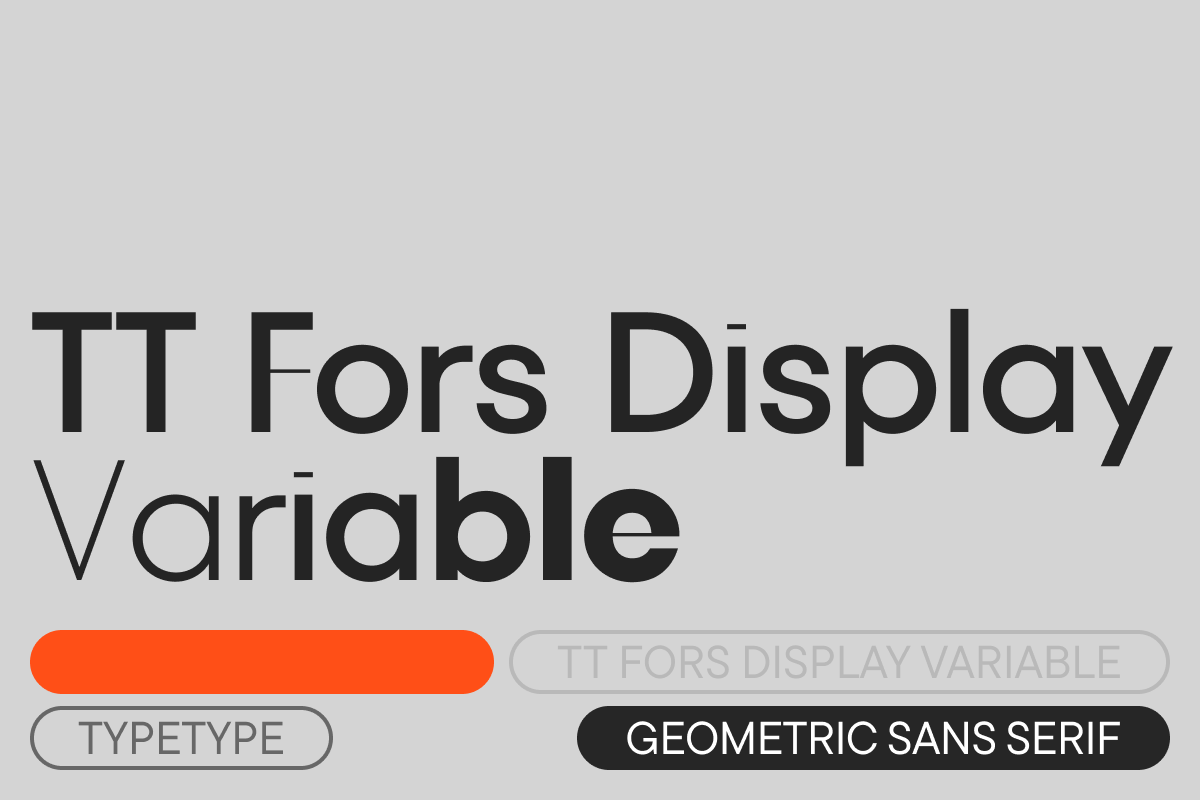
TT Fors Display VF
TT Fors is a geometric sans serif with a neutral character and refined proportions. The inspiration for creating TT Fors came from studying geometric sans serifs from the early to mid-20th century and analyzing their influence on the visual culture and design of that era. We aimed to create a typeface that, while maintaining a connection with the legacy of great typographers of the past, would meet modern requirements and solve contemporary challenges.